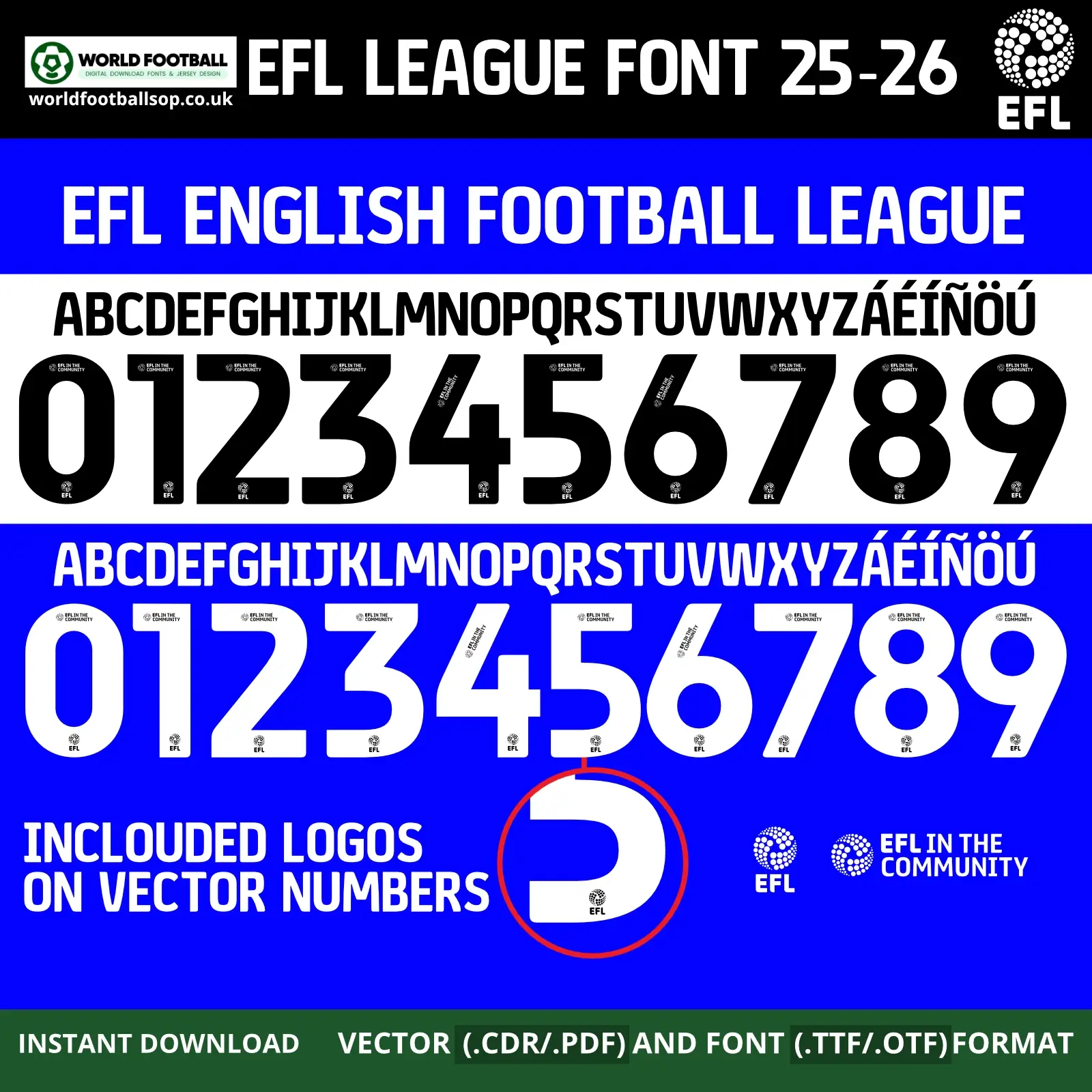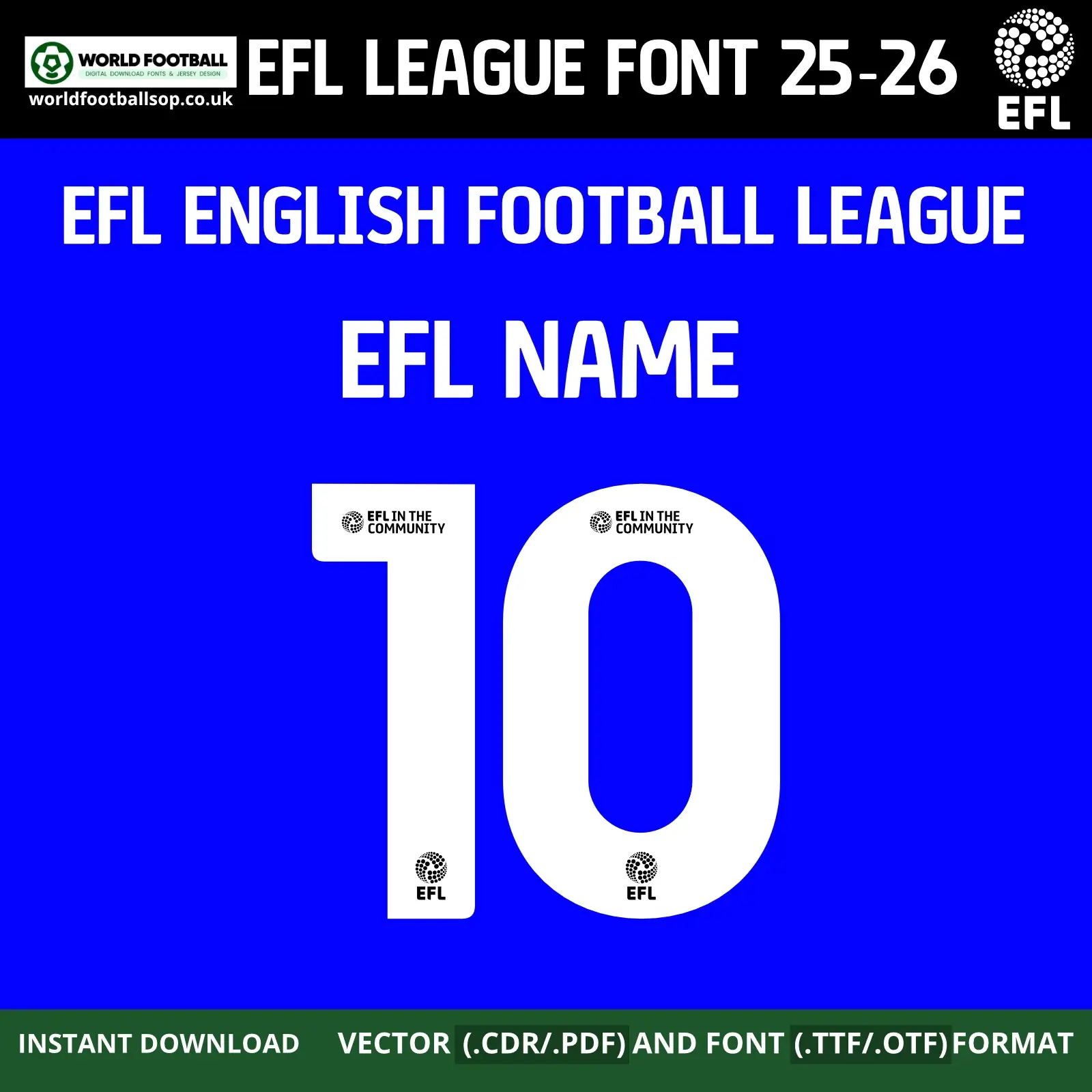
EFL English Football League Font 25-26 – Unified EFL Style
The EFL English Football League Font 25-26 pack mirrors the official typography worn by all clubs in the Championship, League One and League Two during the 2025-26 season. The font uses tall, modern numerals with rounded corners and straight vertical sides, designed for maximum readability on TV and in stadiums. Your covers show the numbers in white on royal blue, echoing the core EFL brand colours alongside the circular dotted EFL logo.
This Font Football set is ideal for kit printers, designers and fans who want authentic EFL-style names and numbers for custom shirts, graphics and social posts. Vector numbers include small EFL and “EFL in the Community” marks at the top and bottom, while the TTF/OTF fonts are simplified for everyday design use. You can easily create “EFL NAME 10” mockups, club-specific artwork or neutral EFL-branded jerseys.
Full uppercase A-Z alphabet plus extended characters (Á É Í Ñ Ö Ú, etc.) for international player names.
Numbers 0-9 in home (white) and alternative (black) fill styles for use on light or dark shirts.
Preview layouts: full white-number set on blue, dual black/white sets on white and blue, and an “EFL NAME 10” example for product images.
Design highlights
Official-style geometry: Reflects the current, streamlined EFL kit font with consistent stroke widths and open counters for legibility.
League-wide branding: Suitable for all three divisions (Championship, League One, League Two) thanks to neutral EFL branding rather than club-specific details.
Logo integration: Vector numbers feature the EFL emblem and “EFL in the Community” lockup in authentic positions, just like on match-worn shirts.